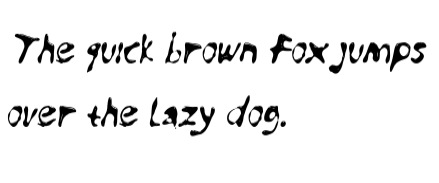
Bleedcry Font: Unleashing the Dark Beauty of Noir Crime in Your Designs
In the world of typography, fonts are more than just a means of communication; they are an expression of style, emotion, and intent. Among the myriad of typefaces available, each with its unique character and charm, Bleedcry stands out as a distinctive and evocative font. Introducing Bleedcry, a typeface that brings a touch of Noir Crime to your design projects. This unique font is not just a set of characters; it’s an artistic interpretation of blood, capturing the essence of intensity, passion, and drama.
What is Bleedcry Font?
Bleedcry Font is a carefully crafted typeface that embodies the dark, mysterious allure of Noir Crime aesthetics. Its design is inspired by the fluidity and intensity of blood, bringing a sense of drama and passion to any design project it is used in. Unlike traditional fonts that focus on readability alone, Bleedcry aims to evoke an emotional response, making it perfect for creative projects that require a touch of edginess and sophistication.
Key Characteristics of Bleedcry Font
- Unique Design: The font features unique, stylized characters that mimic the fluid and dynamic nature of blood. Each letter is designed to convey a sense of movement and emotion.
- Noir Crime Aesthetic: Inspired by the dark and mysterious world of Noir Crime, Bleedcry brings a touch of this aesthetic to your designs, making them stand out with a distinctive look.
- Emotional Impact: The font is designed to evoke strong emotions, making it ideal for projects that require a deep connection with the audience, such as movie titles, posters, and creative advertisements.
- Versatility: Despite its unique design, Bleedcry is versatile and can be used in various design projects, from digital content to print materials.
Uses of Bleedcry Font
Bleedcry Font is not just limited to specific projects; its versatility allows it to be used across a wide range of design applications. Here are some of the most effective uses of Bleedcry:
- Movie and Theater Posters: The dramatic and intense nature of Bleedcry makes it perfect for movie and theater posters, especially for genres like Noir Crime, thriller, and horror.
- Book Covers: For authors and publishers looking to give their book covers a unique edge, Bleedcry offers a way to convey the intensity and emotion of the story within.
- Advertising: In advertising, capturing the audience’s attention is crucial. Bleedcry’s unique design can help ads stand out, especially for campaigns that require a bold and daring approach.
- Graphic Design Projects: Beyond traditional applications, Bleedcry can be used in various graphic design projects, such as logos, branding materials, and digital content, where a distinctive look is desired.
Benefits of Using Bleedcry Font
Choosing Bleedcry Font for your design projects comes with several benefits that can elevate your work:
- Emotional Connection: The font’s unique design helps create an immediate emotional connection with the audience, making your designs more impactful.
- Distinctive Look: In a sea of standard fonts, Bleedcry offers a distinctive look that can set your projects apart from the competition.
- Versatility: Its versatility means you can use Bleedcry across different mediums, from digital platforms to print.
- Creative Freedom: With Bleedcry, designers have the creative freedom to experiment with different styles and ideas, pushing the boundaries of conventional design.
How to Use Bleedcry Font Effectively
To make the most of Bleedcry Font, consider the following tips:
- Pair with Complementary Fonts: While Bleedcry is striking on its own, pairing it with simpler fonts can enhance its impact and improve readability.
- Use Appropriate Colors: The Noir Crime aesthetic pairs well with dark, bold colors. Using Bleedcry with colors like black, dark grey, and red can amplify its effect.
- Consider the Context: Ensure that the use of Bleedcry aligns with the overall theme and message of your project. Its intense nature works best in contexts that require drama and emotion.
Bleedcry Font is more than just a typeface; it’s a design statement that brings intensity, passion, and drama to your projects. With its unique design inspired by the fluidity of blood and the aesthetic of Noir Crime, Bleedcry offers a distinctive look that can elevate your designs and create a lasting emotional connection with your audience. Whether you’re working on a movie poster, book cover, or any other creative project, Bleedcry provides the perfect blend of style and emotion, making it a valuable addition to your typographic arsenal.
In the world of design, fonts are powerful tools that can make or break the visual appeal of a project. With Bleedcry Font, designers have the opportunity to experiment with a typeface that is not only visually striking but also emotionally resonant. By incorporating Bleedcry into your design work, you’re not just choosing a font; you’re embracing a style that speaks to the darker, more passionate side of human experience. So, if you’re looking to add a touch of Noir Crime to your designs and create a lasting impact, Bleedcry Font is the perfect choice.